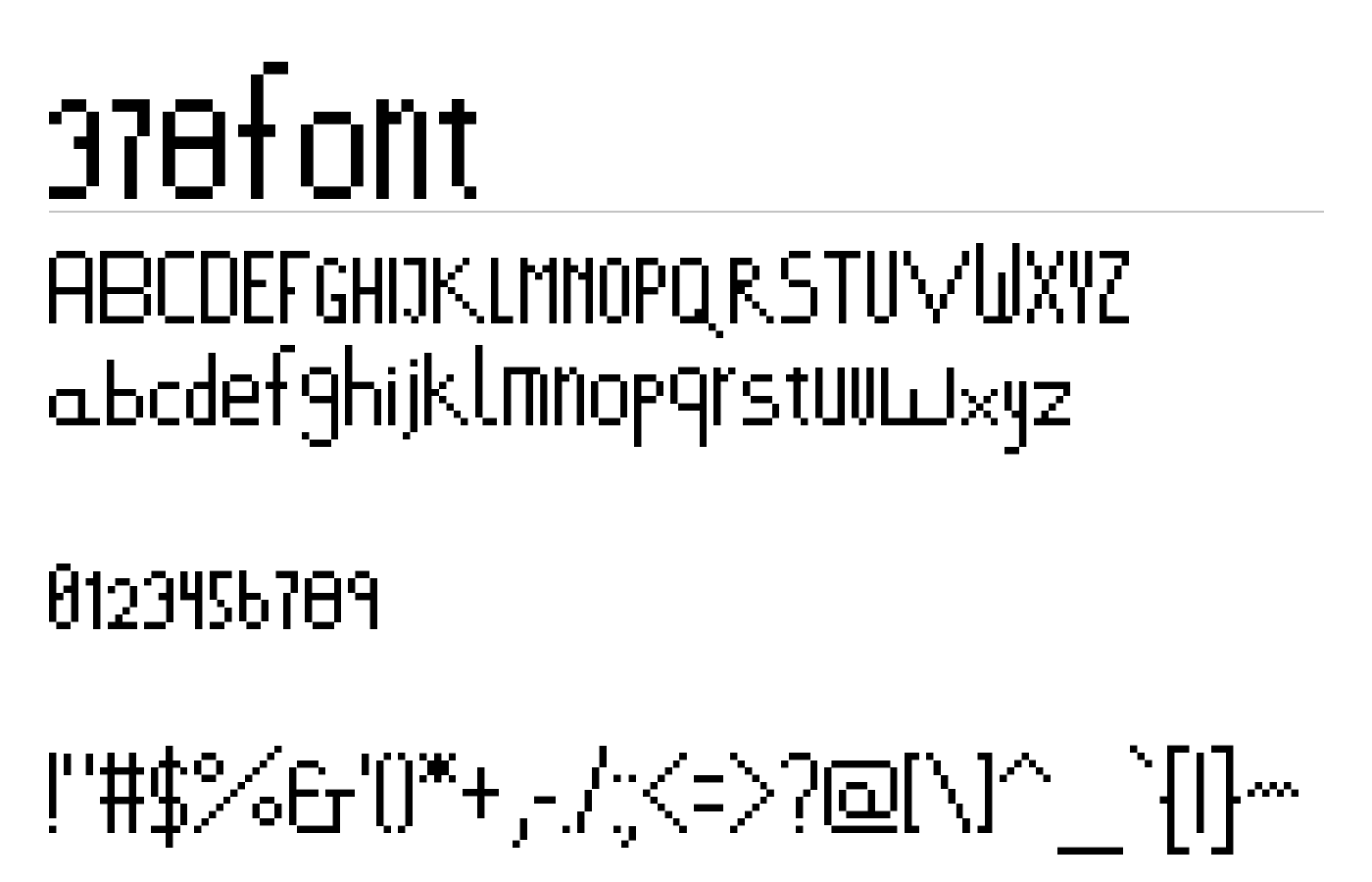
378font is a pixel-style monospace sans serif font with a retro, digital aesthetic. Its narrow, blocky letterforms and consistent stroke weight evoke vintage computer typography, making it ideal for tech-themed designs, coding interfaces, and nostalgic digital art. This font works well in small sizes for screen use or as a distinctive display choice where a pixelated, minimalist feel is desired.
378font
About 378font